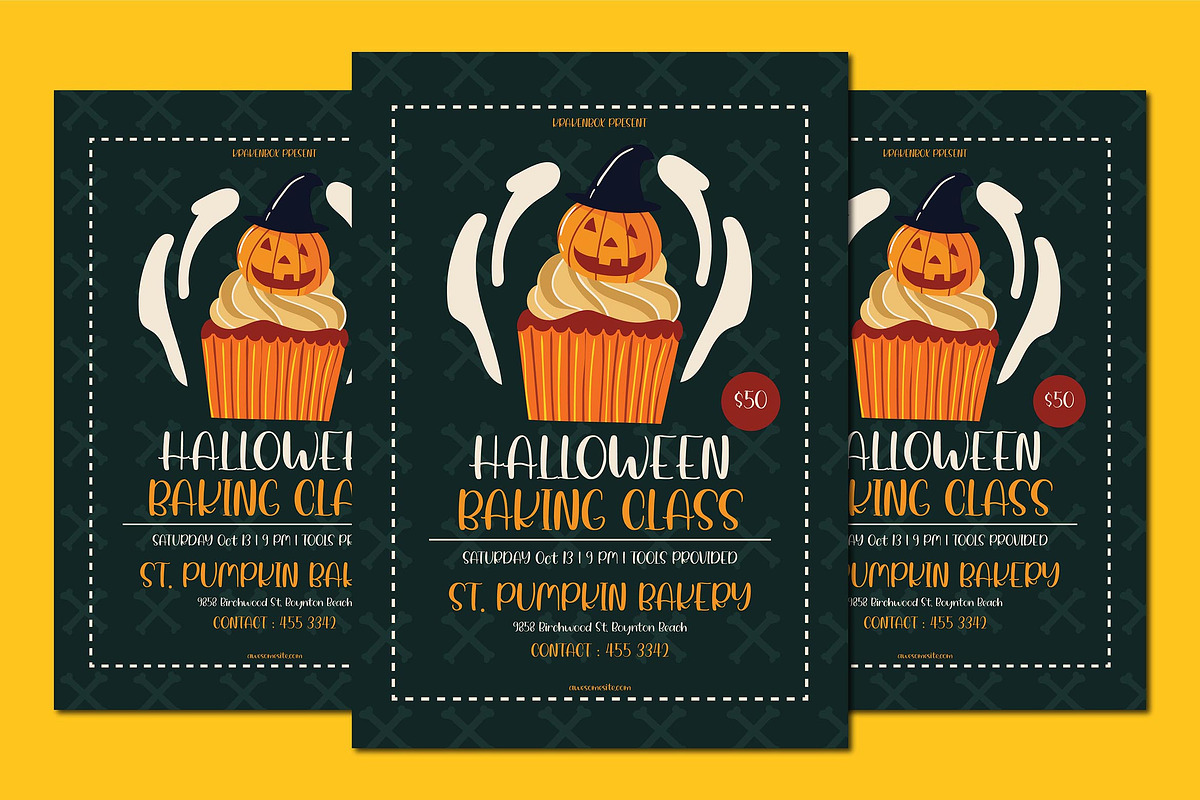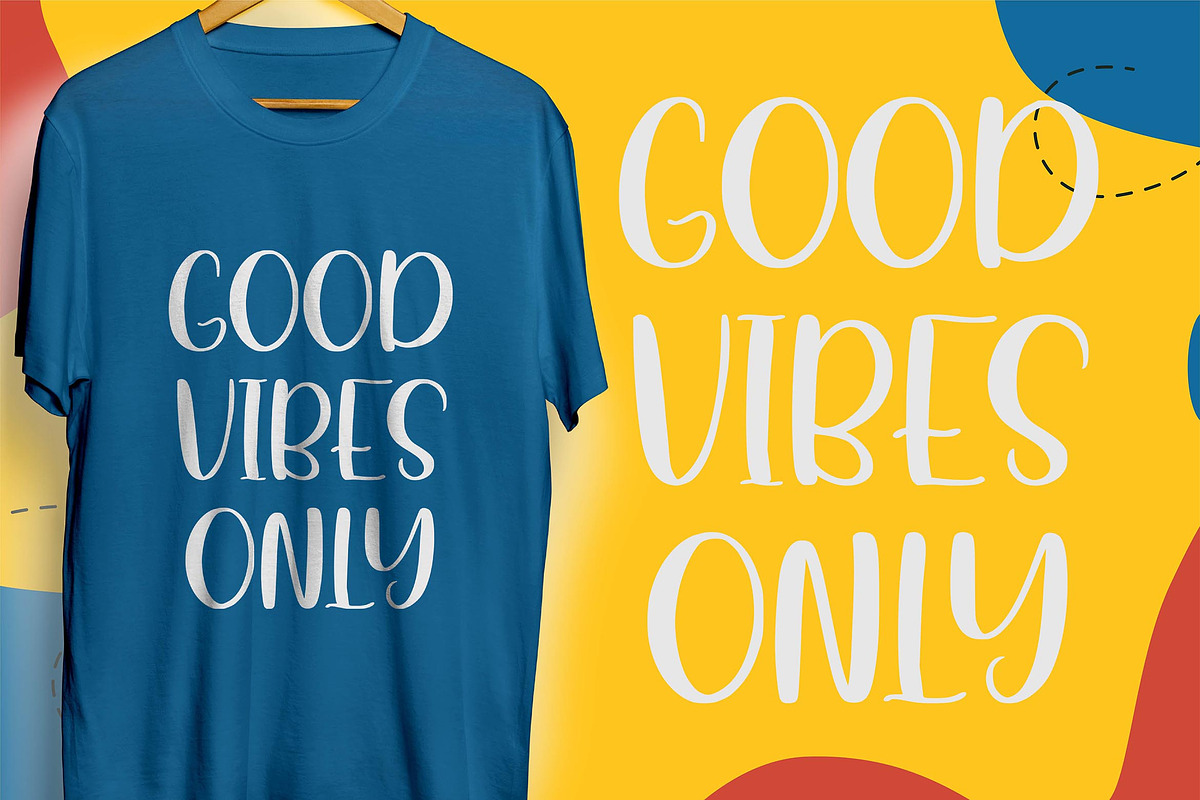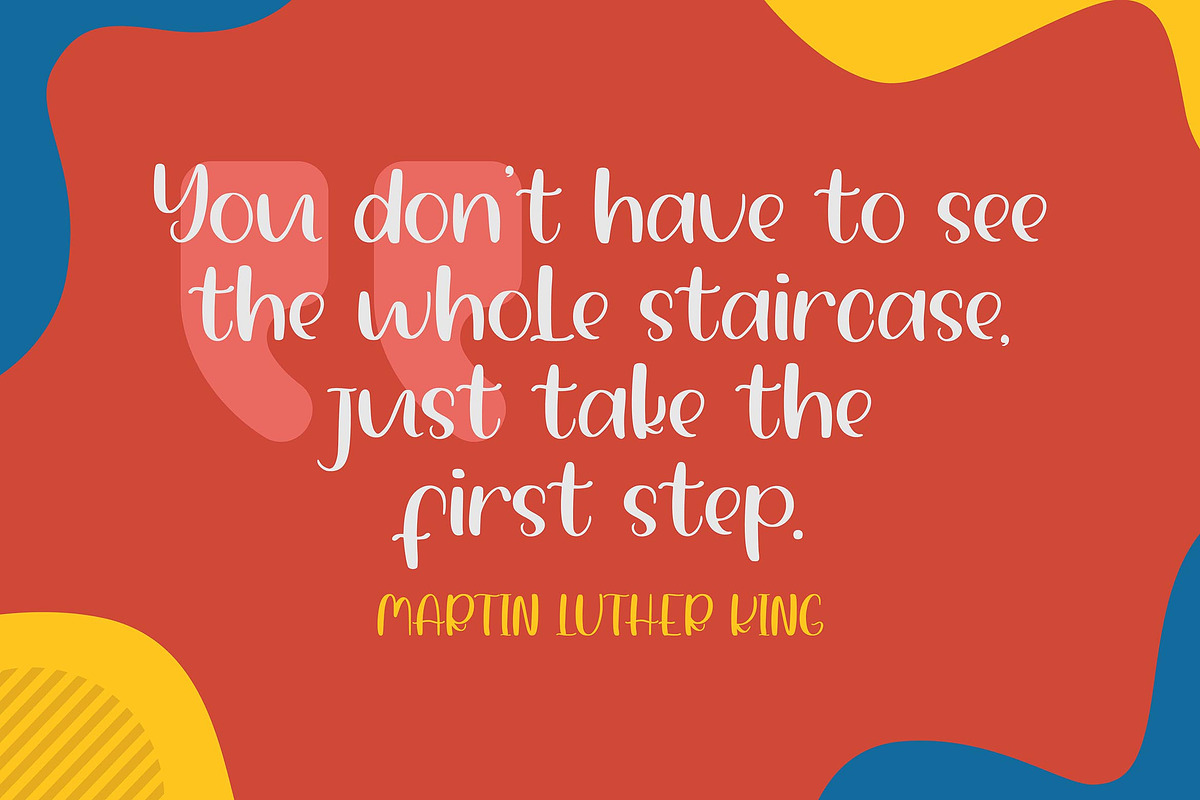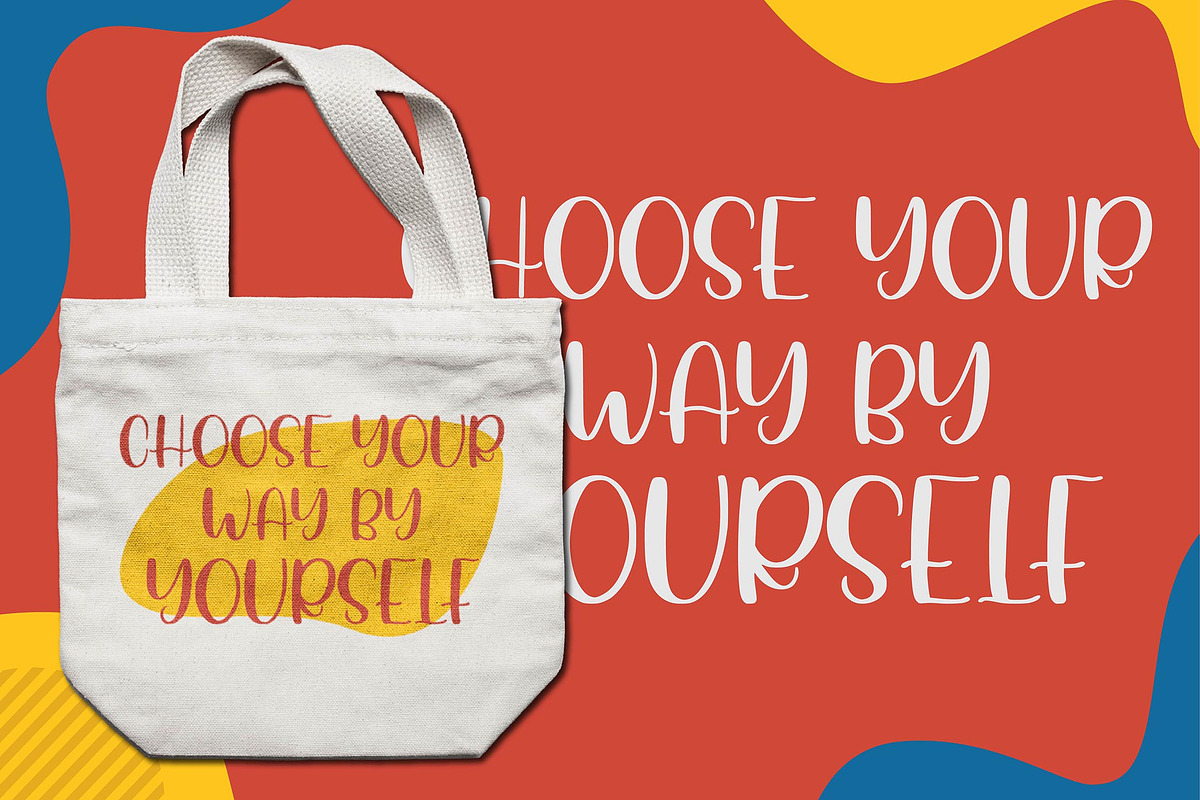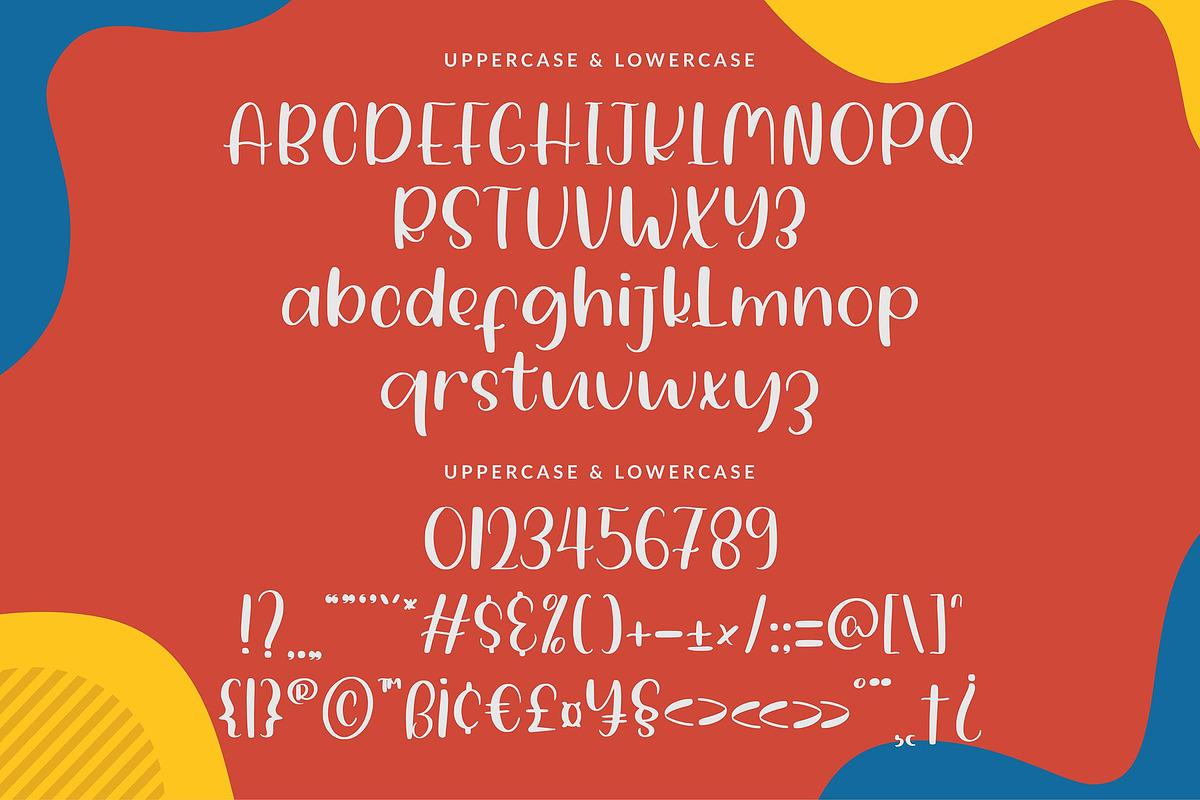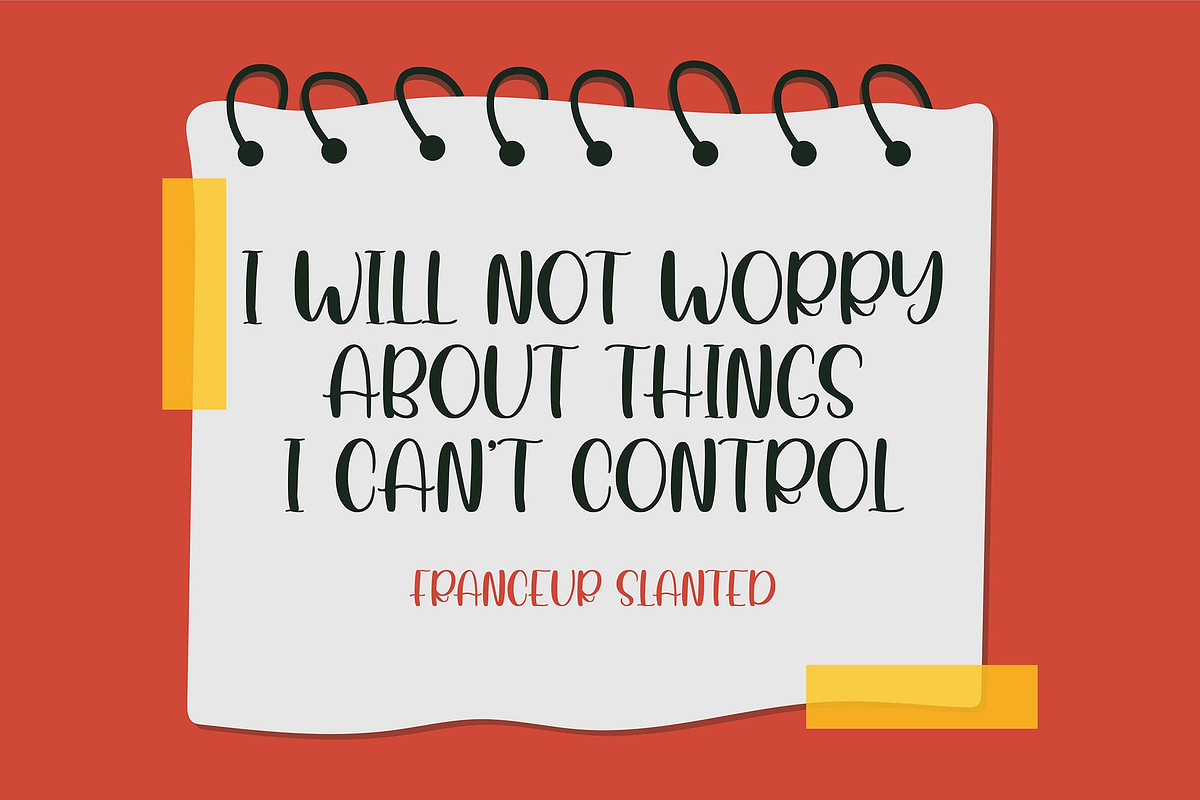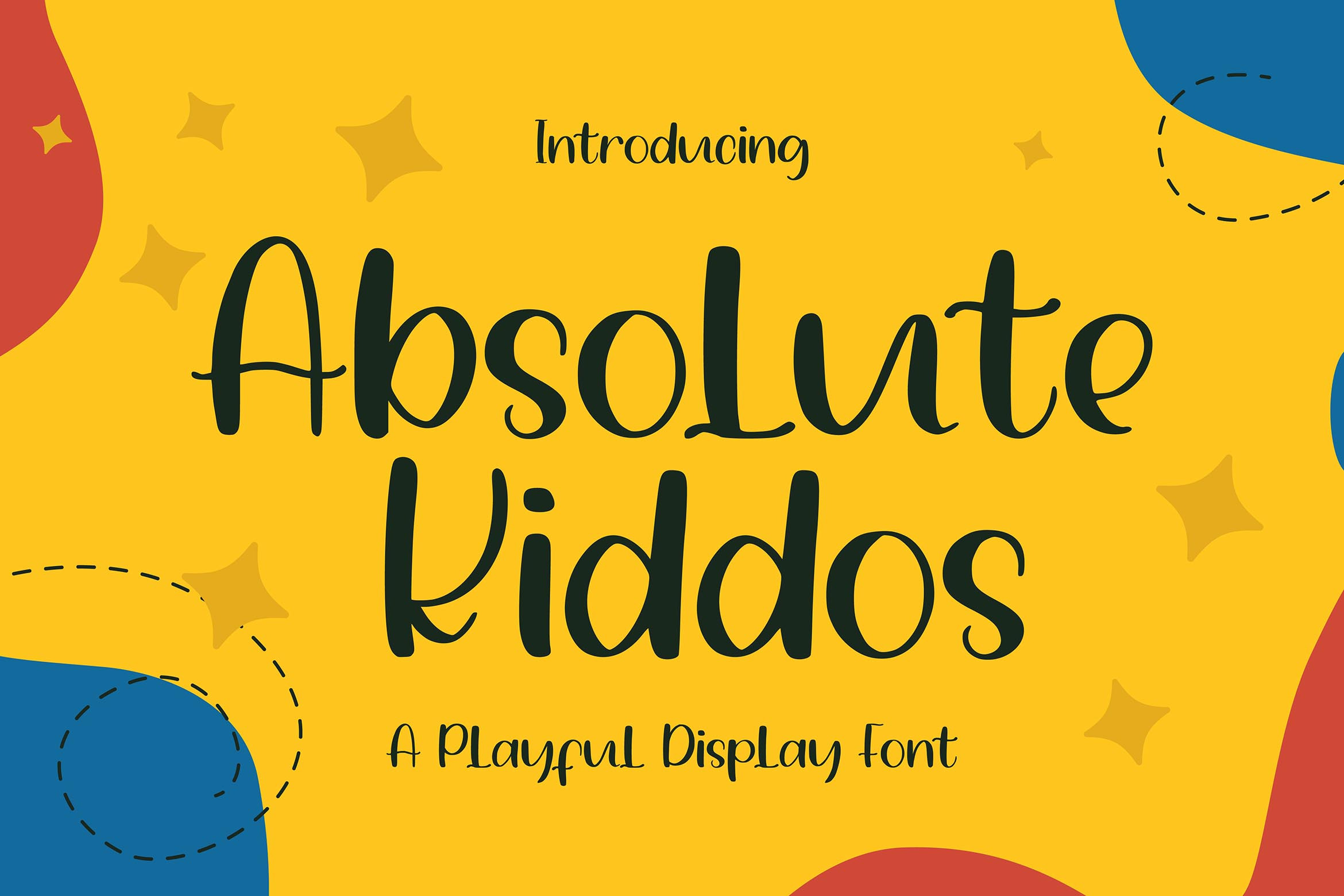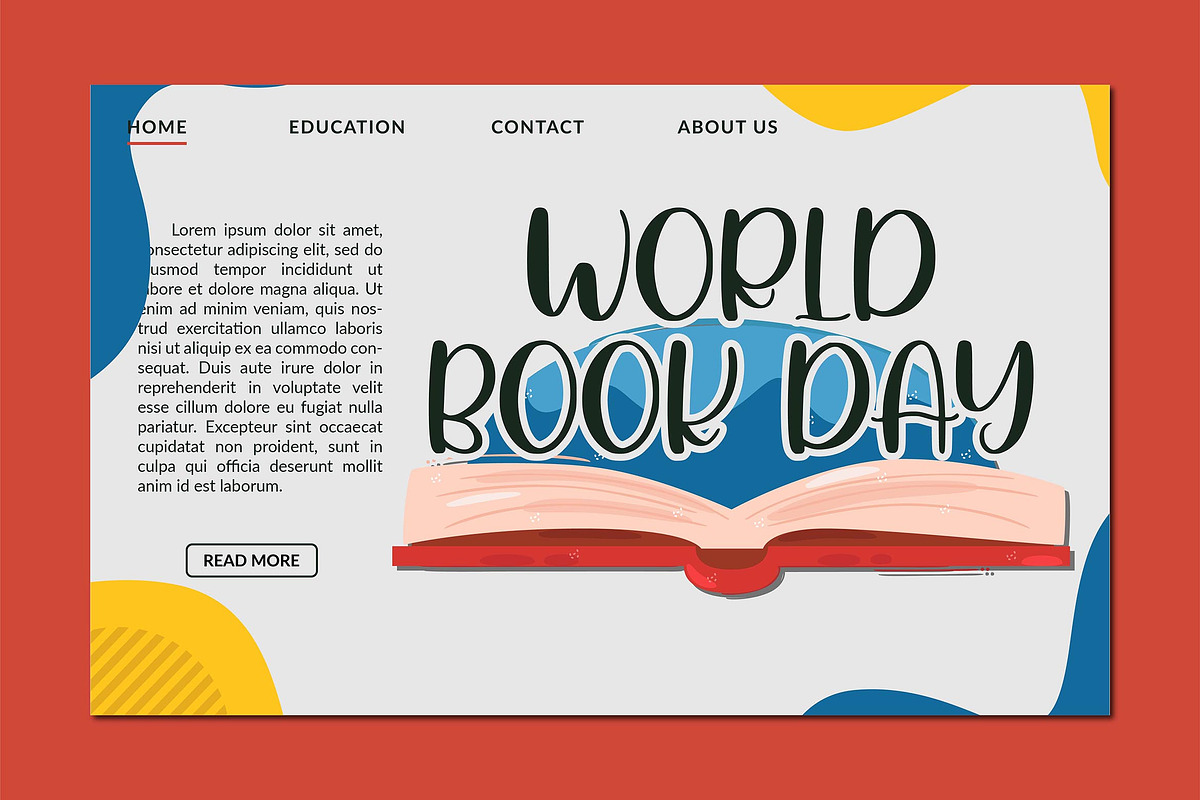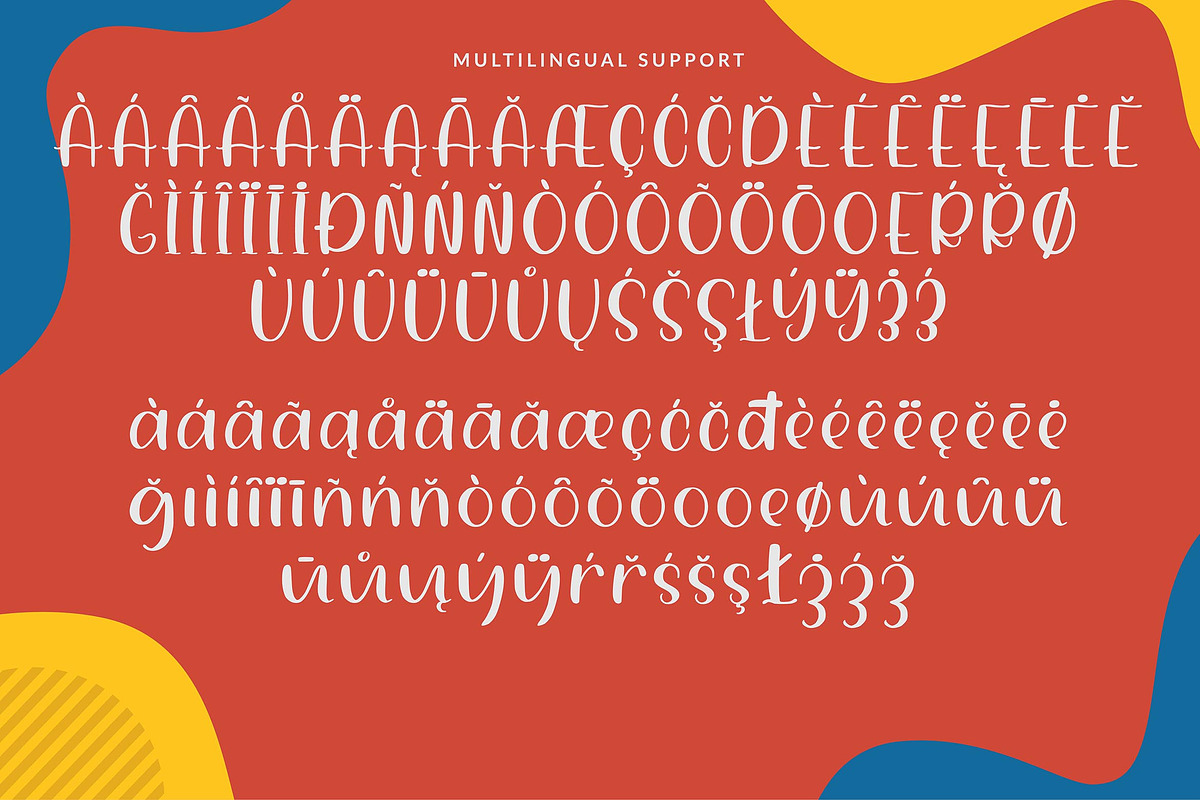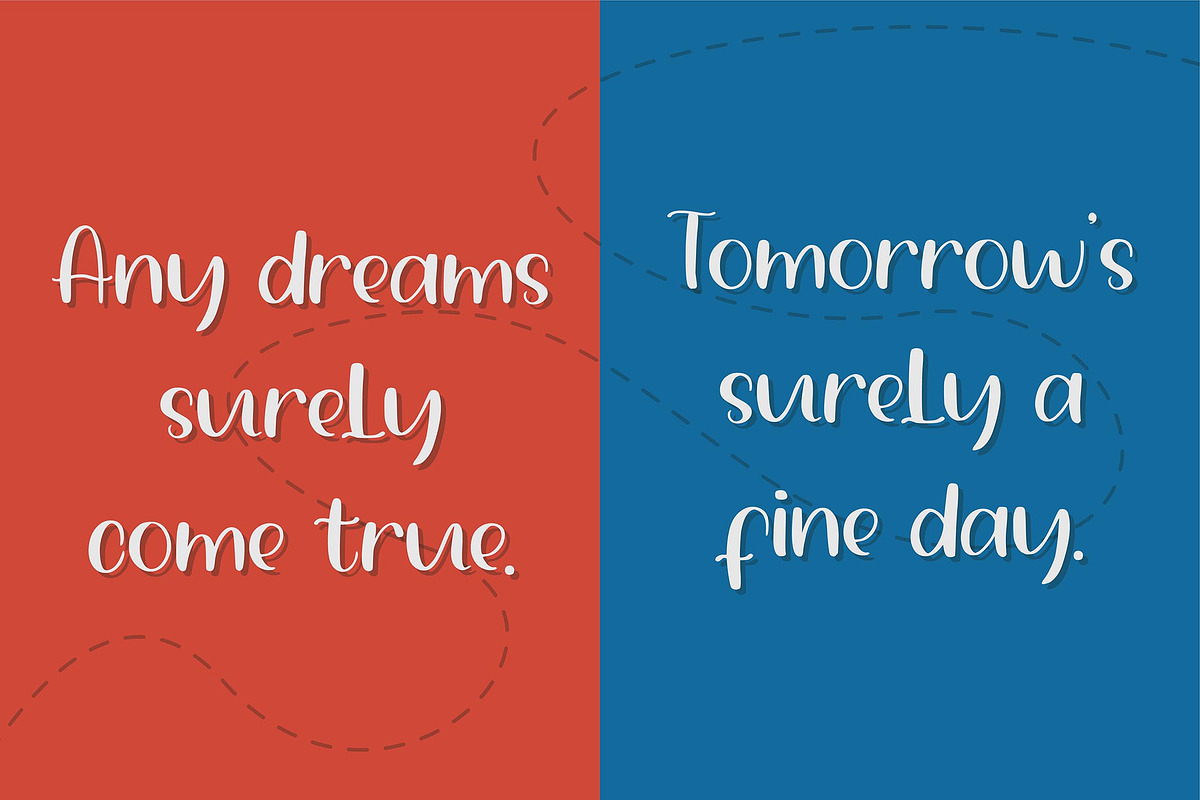
Absolute Kiddos - Display Font
Introducing Absolute Kiddos - Playful Display Font by KrakenBox
Absolute Kiddos is a cute and playful display font. Use this font to add that special cool touch to any design idea you can think of!
Absolute Kiddos is best for:
- logos, branding, & Signatures.
- Flyers, Album cover, Magazine, & Advertisements.
- Website design , design blogs, & fashion.
- Quote graphics for social media.
- and also it works great for other projects.
- Character Set (Uppercase and Lowercase)